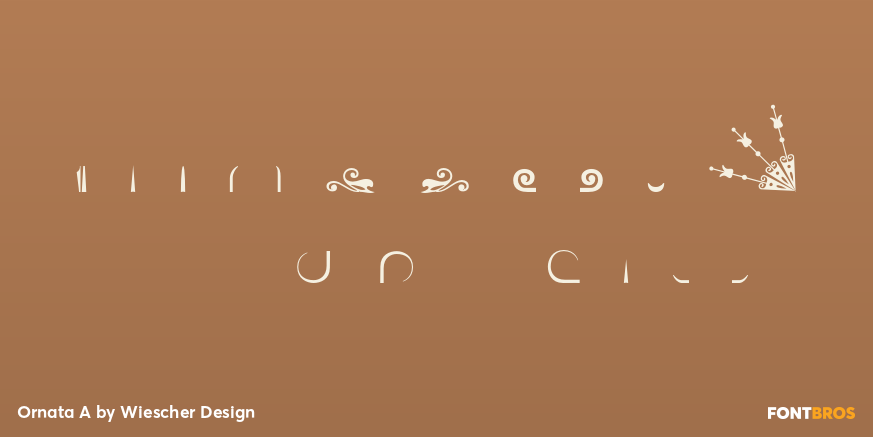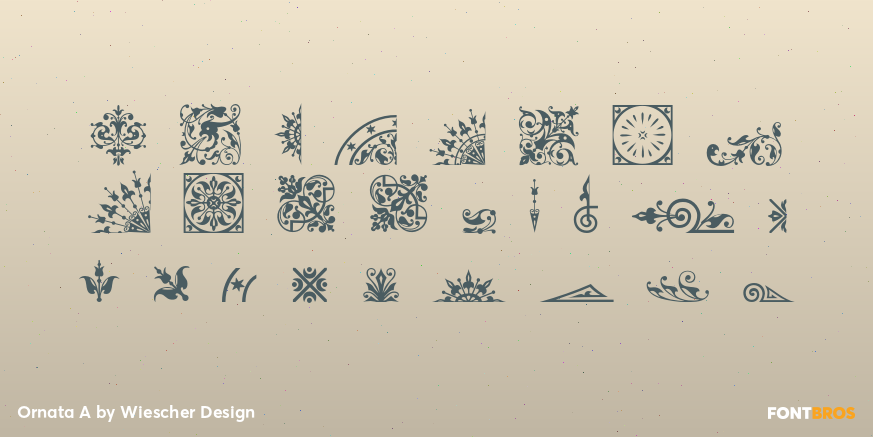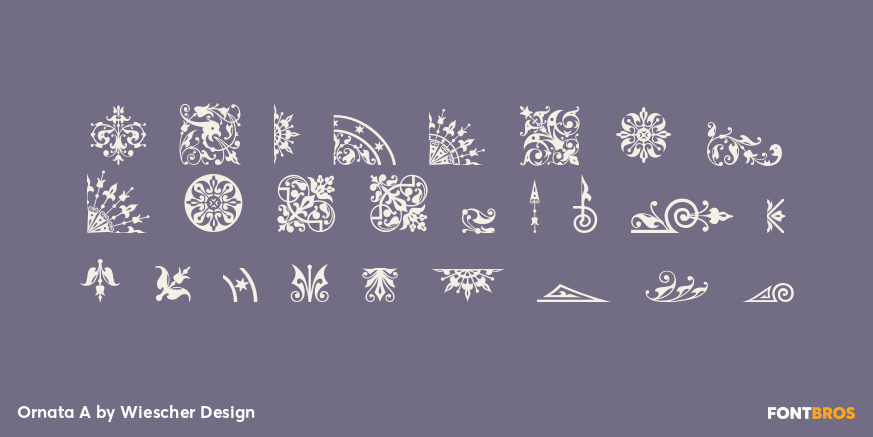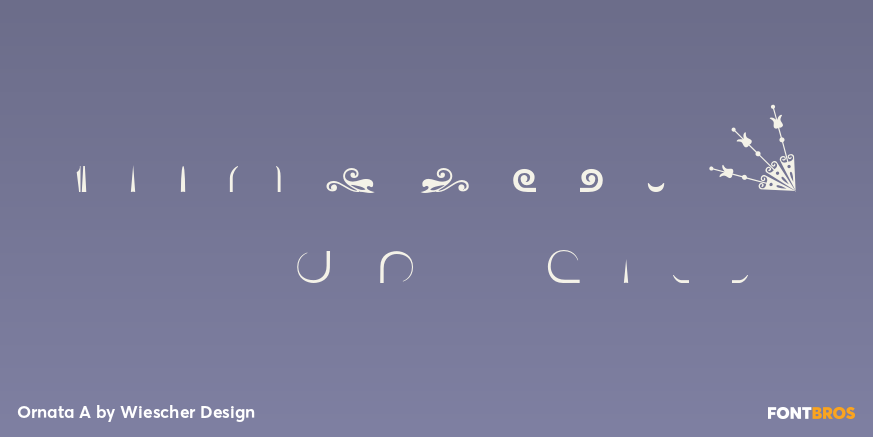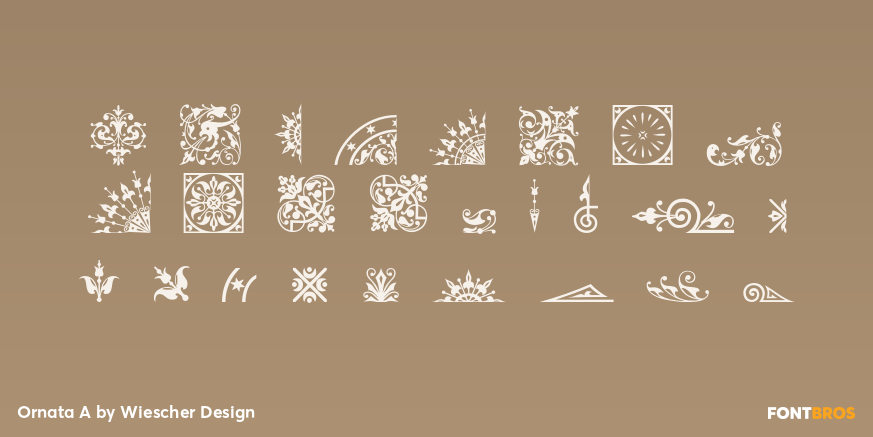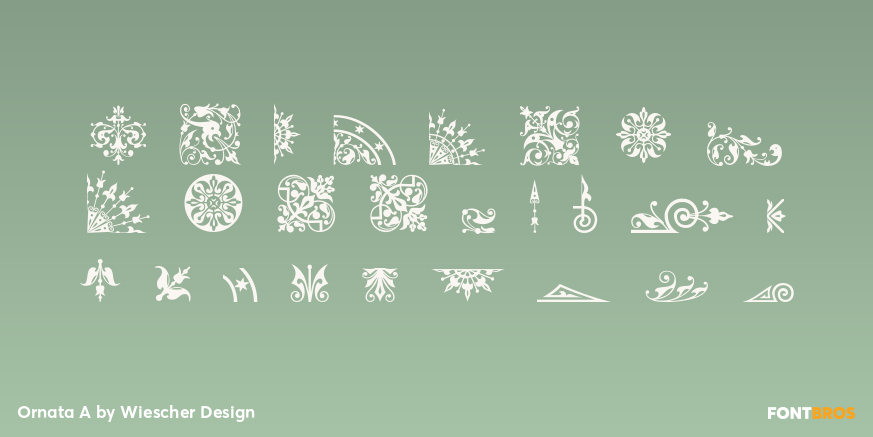
Ornata A
Font Family by Wiescher Design
Ornata A is the first of a series of old ornaments that I am trying to save from oblivion.
I am not just scanning these, I am completely redesigning the ornaments from scratch, thereby eliminating imperfections.